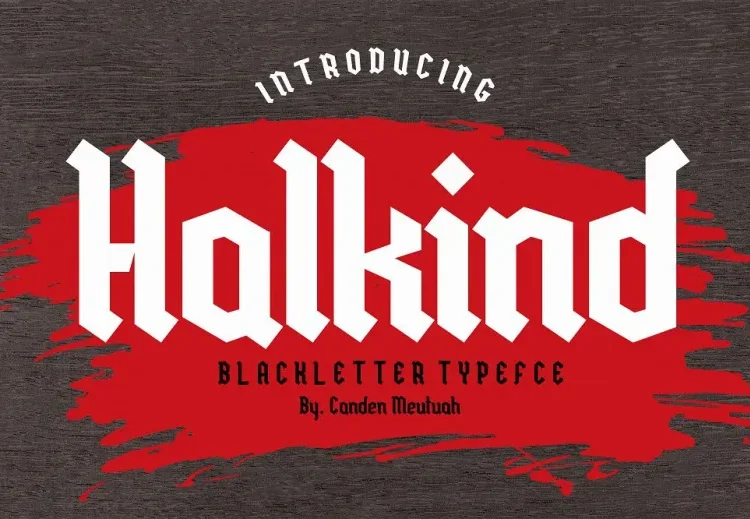
Halkind Font
in Blackletter
Halkind is a stunning blackletter font that brings a classical and luxurious feel to any design it graces. Its bold and intricate design adds an air of sophistication, making it a versatile choice for both large-scale and small-scale projects.
This elegant font is perfect for a variety of applications, including brand designs, logos, clothing logos, packaging designs, magazine titles, advertisements, t-shirts, postcards, editorials, and product packaging. Halkind’s unique style also embodies androgyny, making it a fitting choice for designs that aim to transcend traditional gender norms.